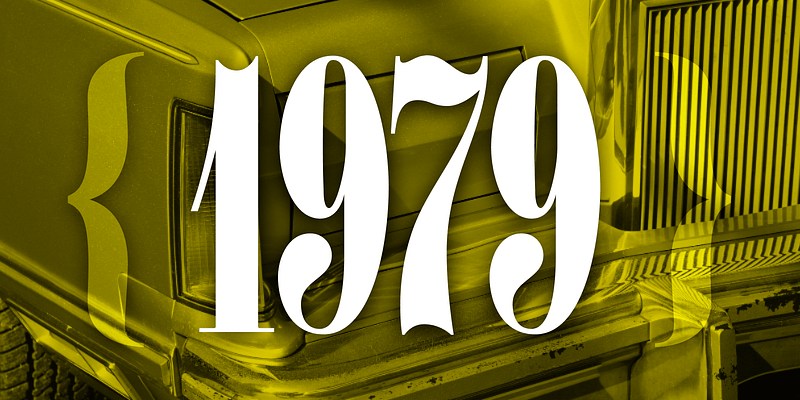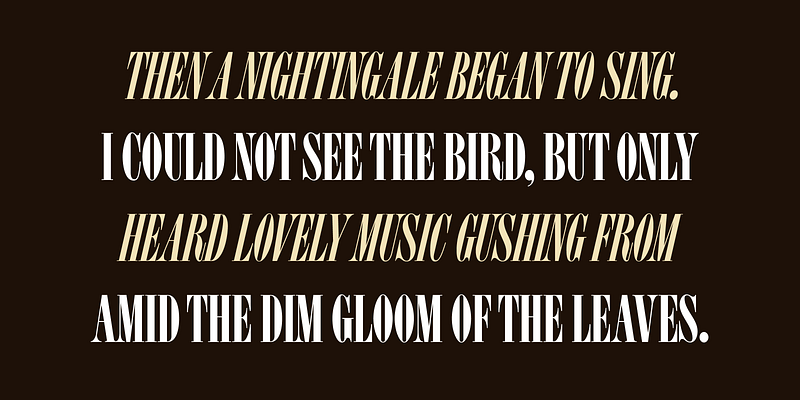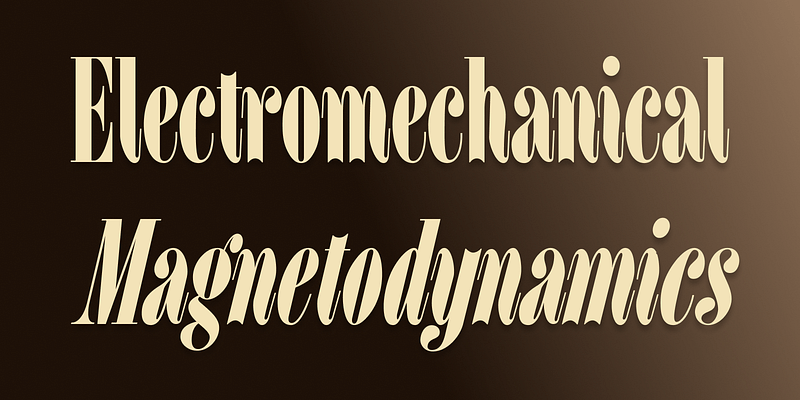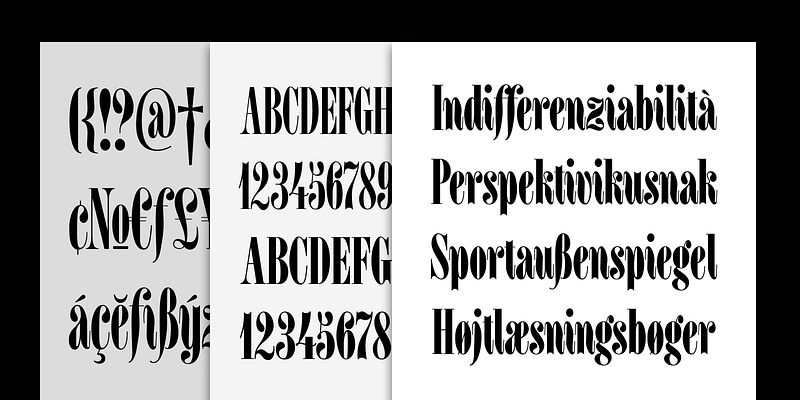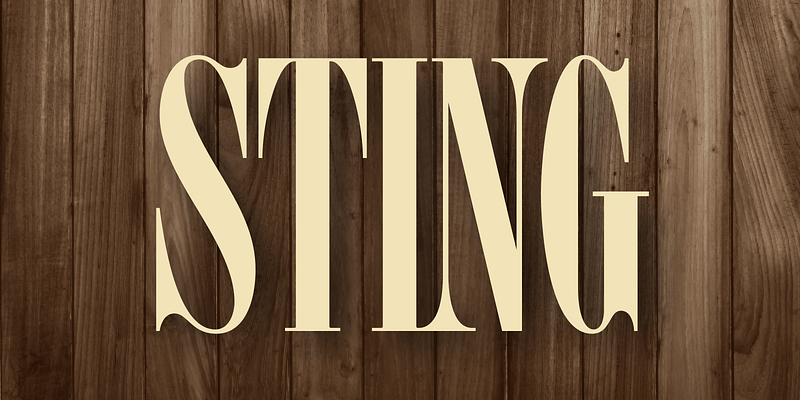
In 2016, Garagefonts published a pair of nostalgic 1980s-theme typefaces without identifying the designer, other than International TypeFounders and Phil’s Fonts. Homage Script (2016) is inspired by James Hellmuth’s 1980 cover lettering for Phil’s Photo Homage to the Alphabet, and Homage Condensed (2016) is a digital revival of LSC Condensed by Tom Carnese and Herb Lubalin.